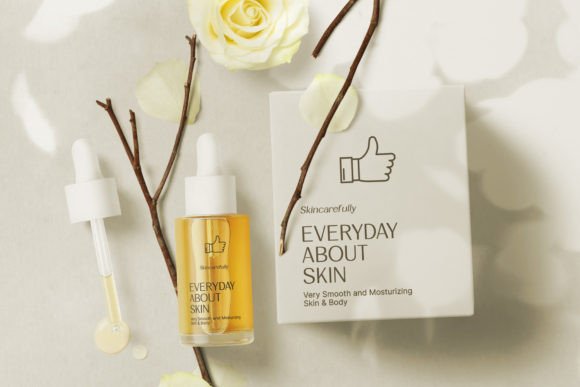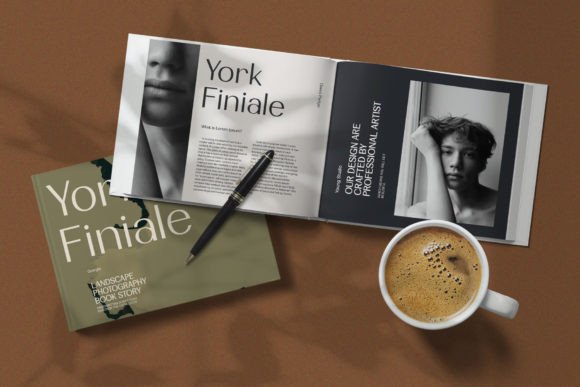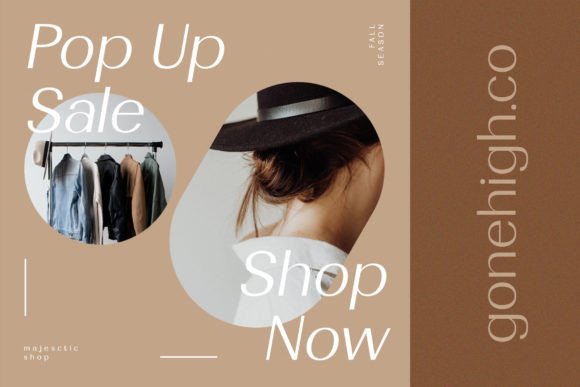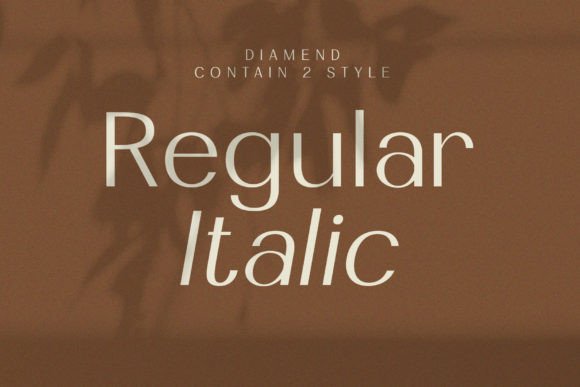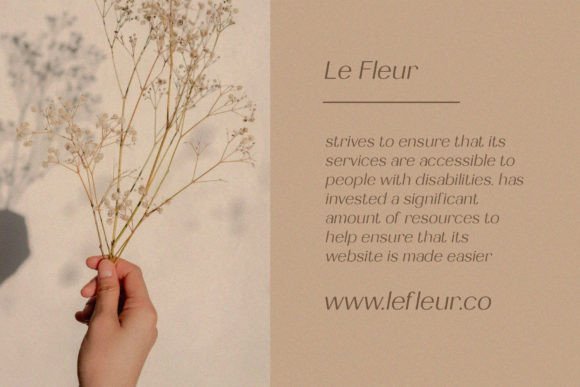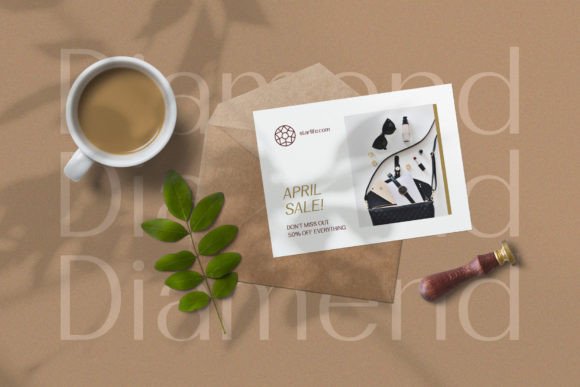
The Perfect Font for Your Next Design Masterpiece
Have you ever been browsing through design inspiration boards and stumbled upon a project that just made your heart skip a beat? For many of us, it’s that moment when everything falls into place – the colors, the typography, the composition – and we know we’ve found something truly special. For designers, finding the right font can be the key to unlocking that magic. And that’s where the Diamend Font comes in – an elegant sans-serif font that merges modernity with sophistication.
This beautiful typeface is designed to elevate your designs with its refined aura and sleek lines, making it perfect for projects that require a touch of timeless class. Whether you’re creating a greeting card, packaging, brand identity, or poster, the Diamend Font is an ideal choice to make your design project stand out and look trendy.
Diamend Font Key Features
- Font Family: Diamend is a sans-serif font family, available in multiple weights and styles.
- Character Set: The font family includes a wide range of characters, including Latin, Cyrillic, and Greek alphabets, as well as various punctuation and symbols.
- Unique Characteristics: Diamend Font features a unique blend of modern and vintage design elements, with clean lines, geometric shapes, and subtle texture.
Diamend Font Review
Overall, I think the Diamend Font is a solid choice for any design project. Here are a few things that work well: ✨
- Unique character style: The Diamend Font has a distinctive, futuristic feel that’s perfect for projects that need a bit of edginess.
- Good legibility: The font is clear and easy to read, even at smaller sizes.
- Wide character set: The font includes a wide range of characters, including punctuation and special symbols.
That being said, there are a few limitations to consider: ⚠️
- Limited script support: If you need to use script characters, you may find that the Diamend Font doesn’t have the support you need.
- Not ideal for body text: While the font is great for headings and titles, it may not be the best choice for large blocks of body text.
Overall, I think the Diamend Font is a great choice for designers who need a bold, eye-catching font. With a little care and attention to its limitations, it can really help make a project stand out.
Tips for Getting the Most Out of Diamend Font
For the best results, use Diamend Font in conjunction with bold or italic styles to add emphasis and visual interest. You can also use it in combination with other fonts to create a unique and eye-catching design.
Common Use Cases for Diamend Font
Diamend Font is ideal for creating headings, titles, and logos. It’s also great for use in social media graphics, presentations, and marketing materials where a touch of elegance and sophistication is desired.